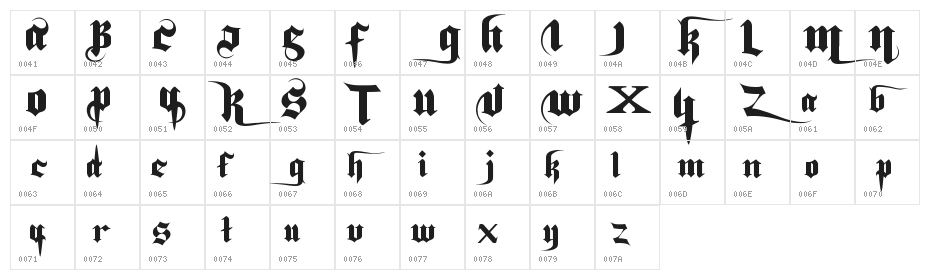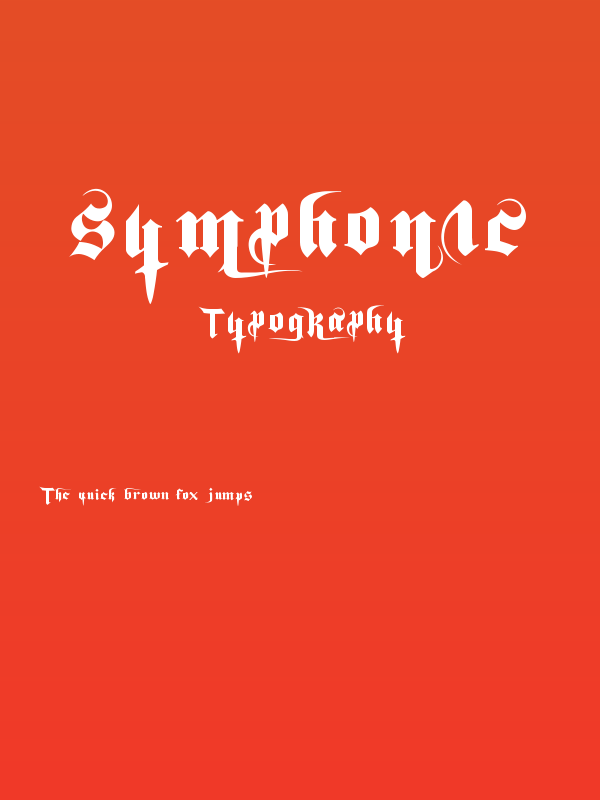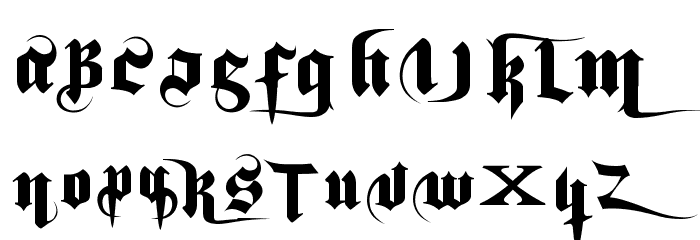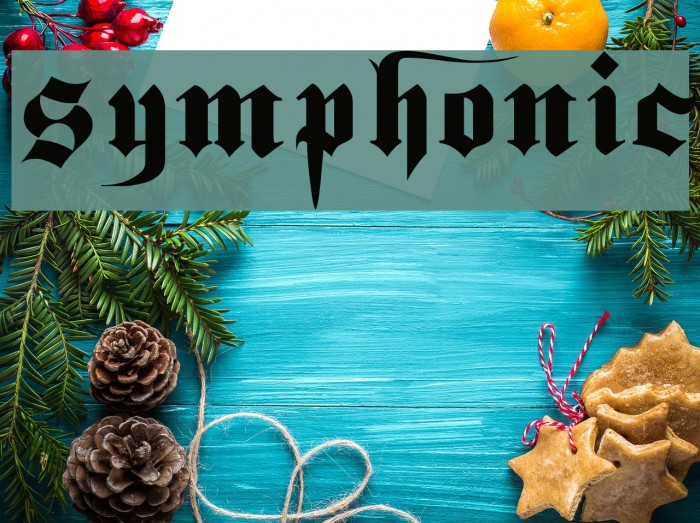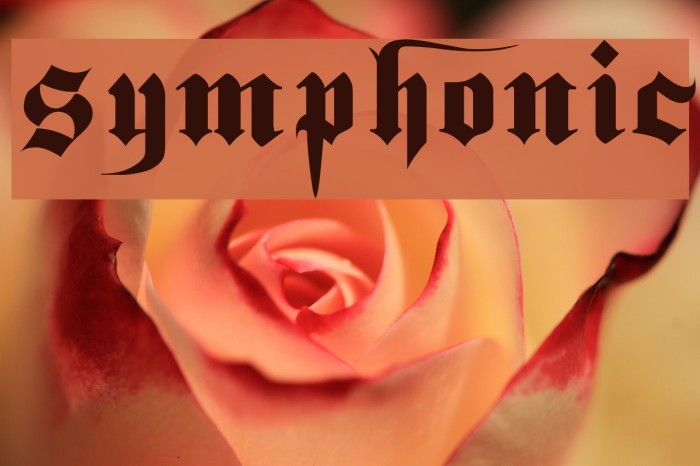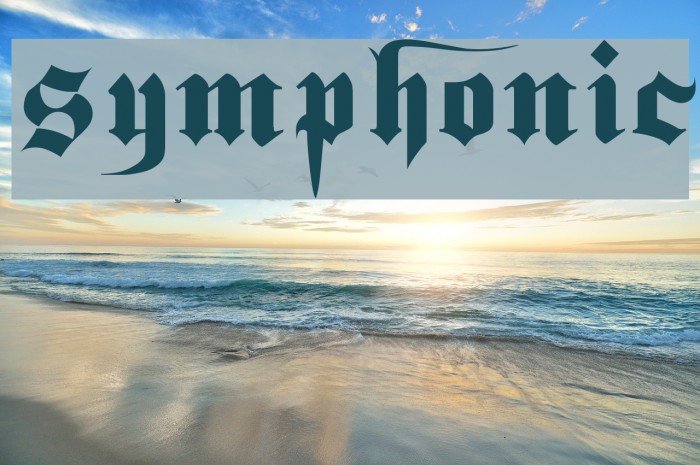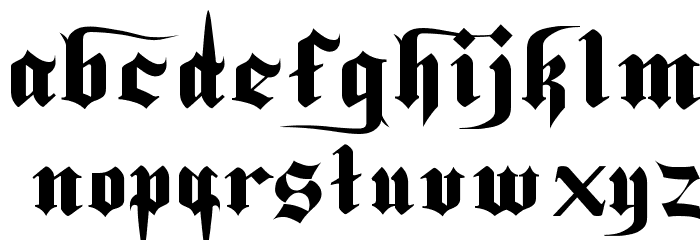
symphonic Font
symphonic Description
This font is a striking example of Blackletter style, characterized by its intricate and ornate design. The letters are bold and dramatic, with sharp, angular lines and elaborate flourishes that give it a gothic, medieval appearance. The uppercase and lowercase letters maintain a consistent style, with the uppercase being slightly more embellished. The numbers and special characters follow the same aesthetic, ensuring a cohesive look across all characters. The font's high contrast between thick and thin strokes adds to its dramatic flair, making it ideal for projects that require a historical or traditional touch.
| Overall Style | Gothic, Medieval |
| Use Case | Headlines, Logos, Decorative text |
| Proposed Projects | Ideal for historical documents, wedding invitations, gothic-themed designs, or branding that requires a traditional or medieval touch. |